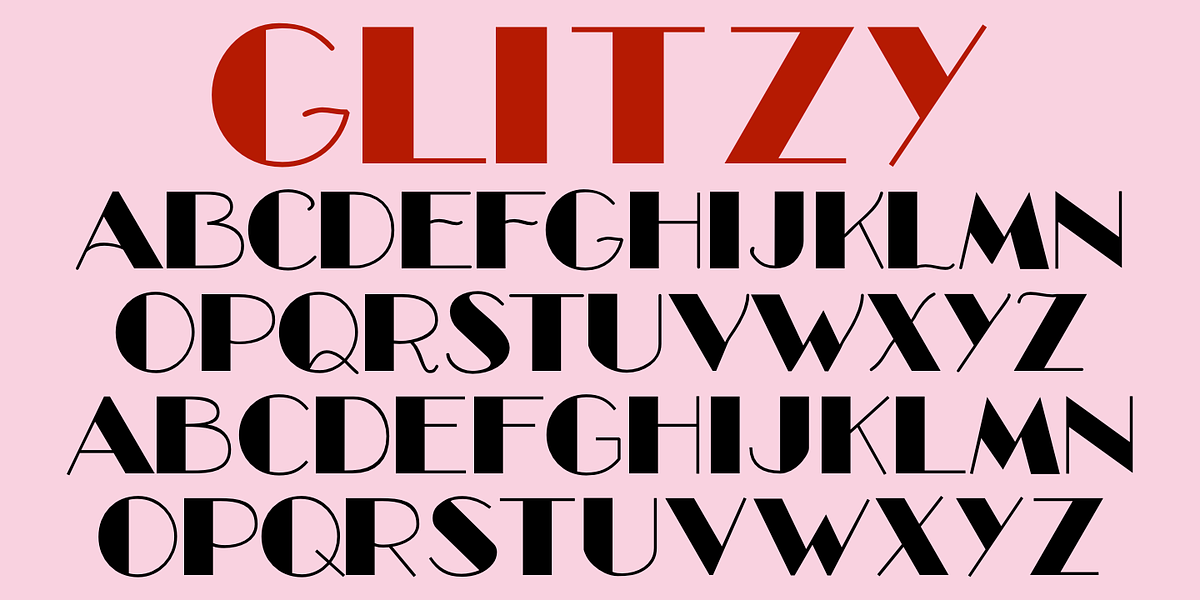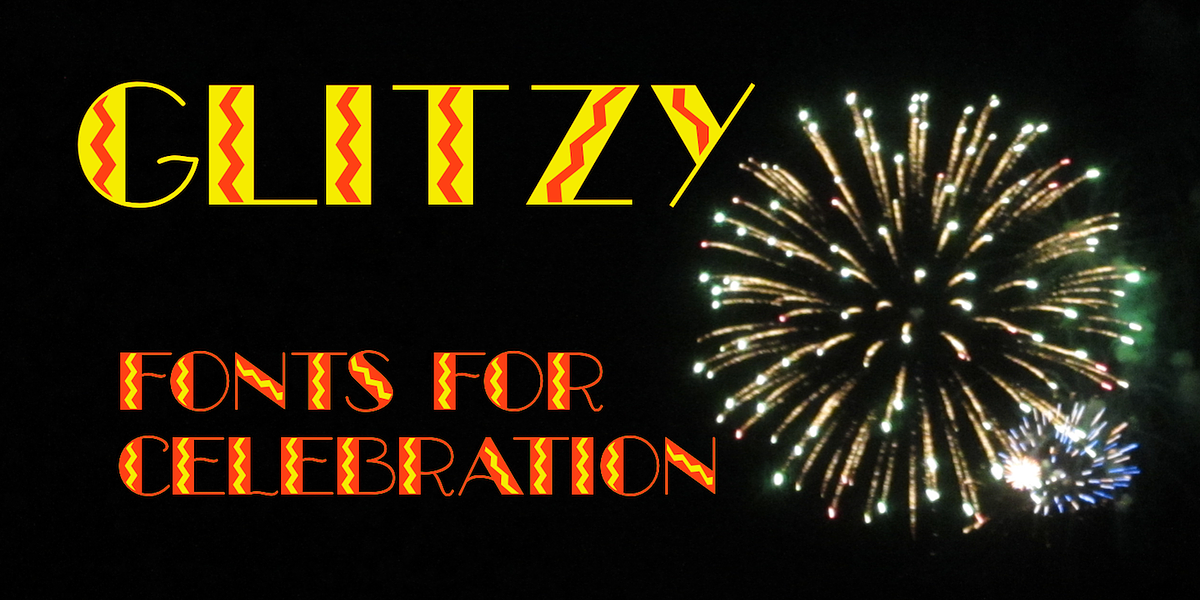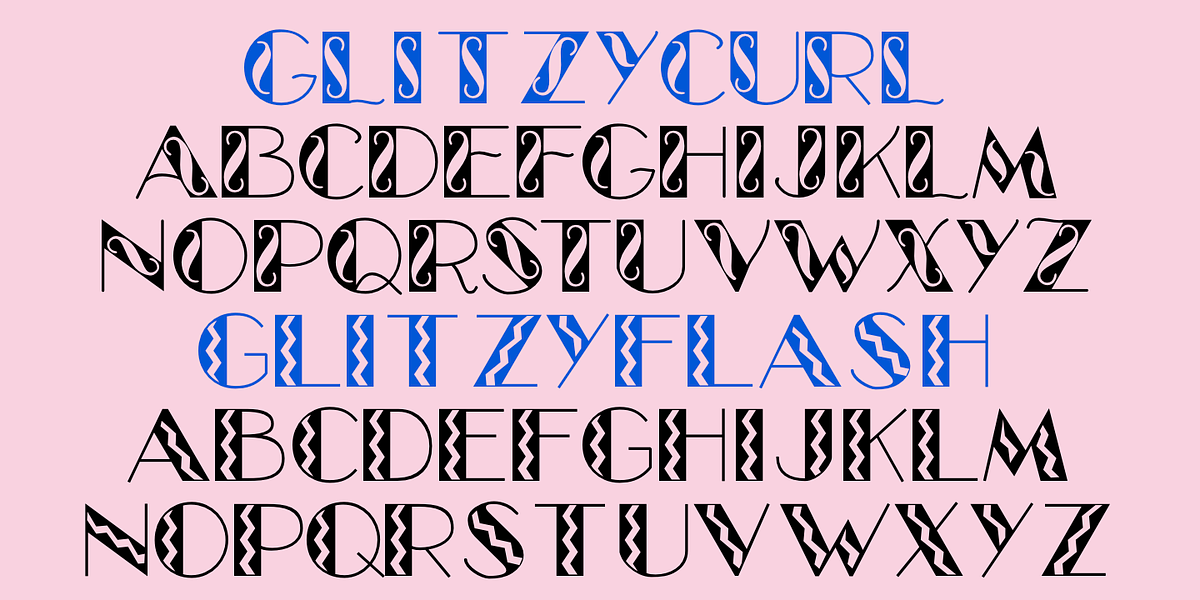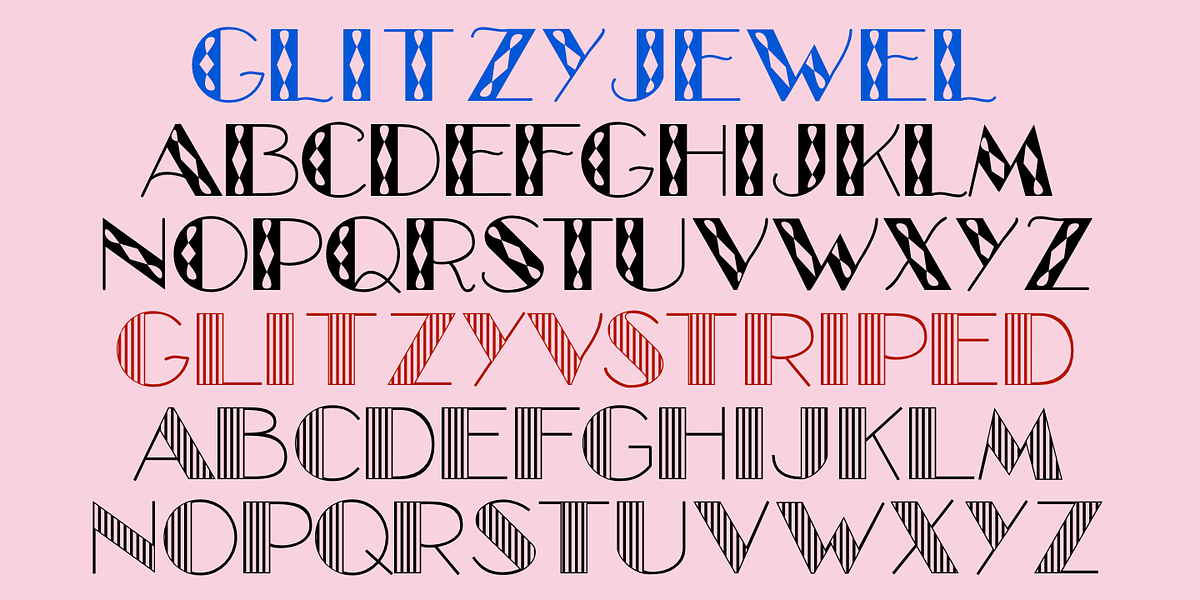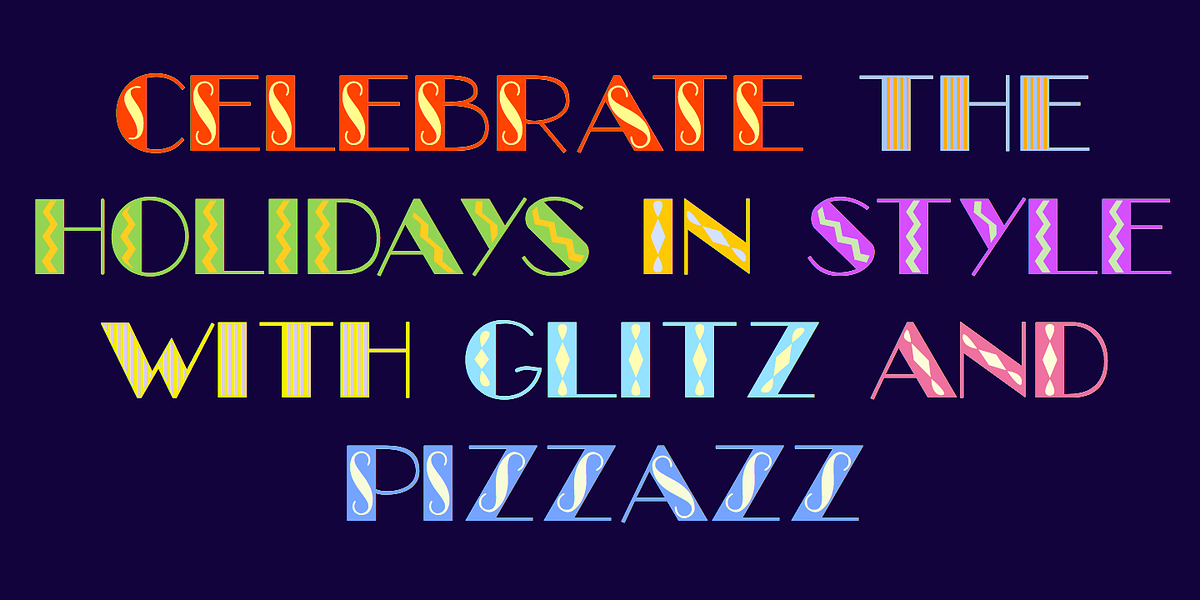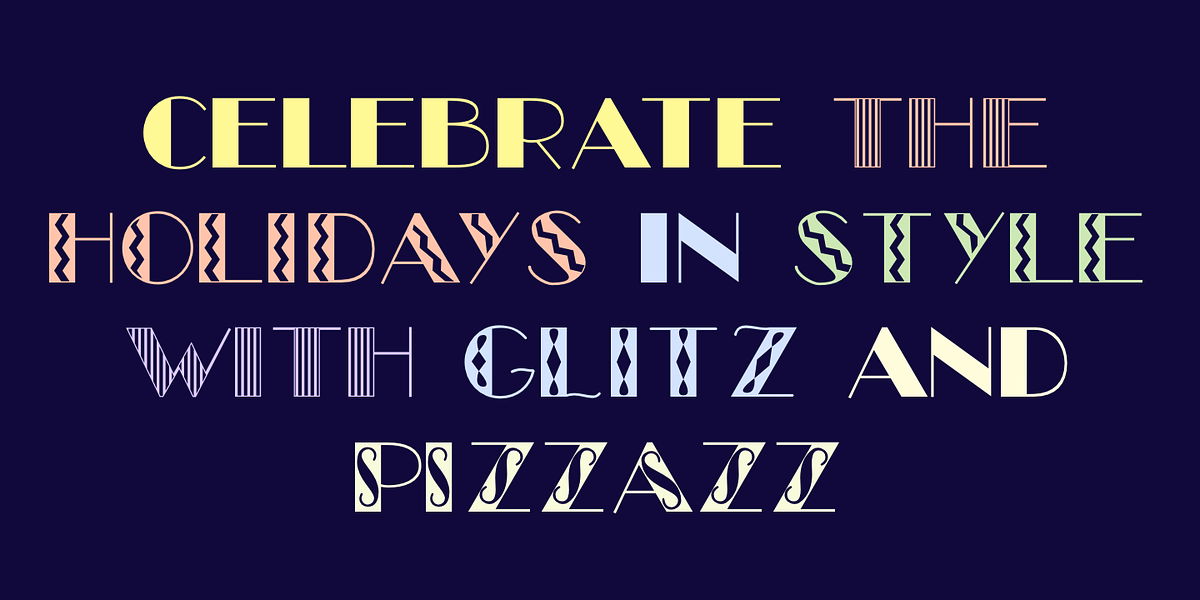
Glitzy
Glitzy is a display font inspired by Art Deco typefaces. It features extreme contrast and is designed for all caps use. The font includes variations with interior decoration that can be layered with the base font to add color and visual interest.